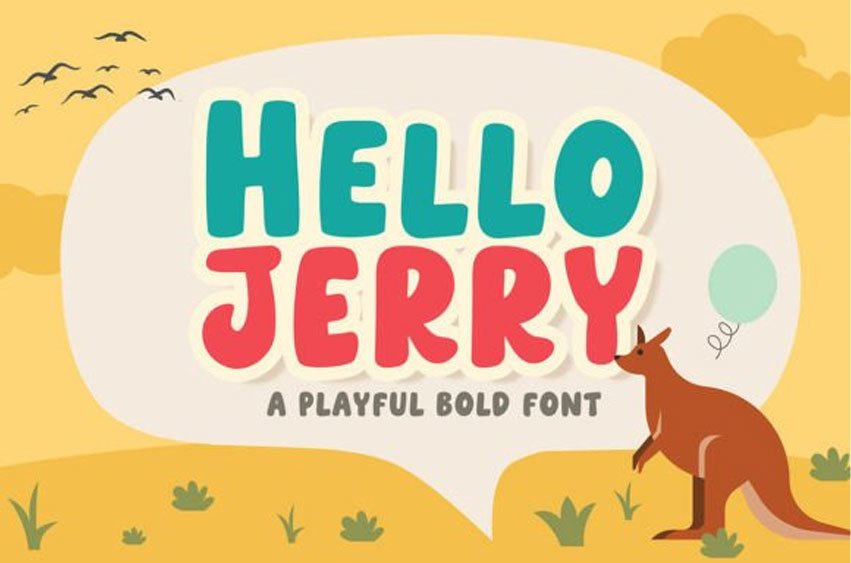
Hello Jerry Font is a playful and bold display font, designed to make a statement and add a touch of whimsy to any project.
Its chunky letters and quirky shapes are perfect for logos, headlines, and packaging designs that require a bold and lively personality. Get ready to unleash your creativity with this playful font!